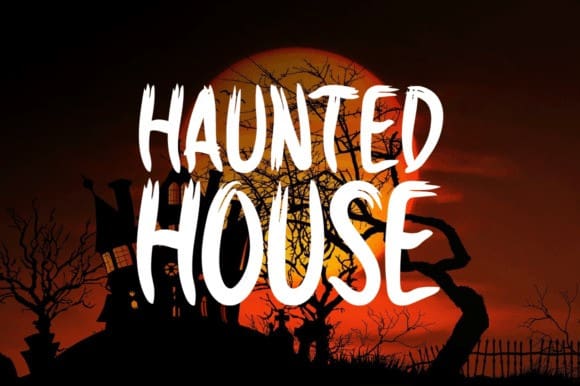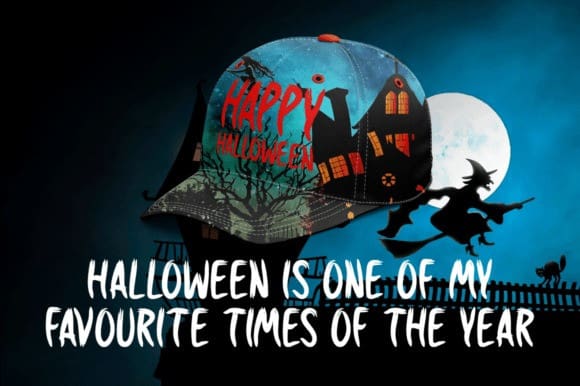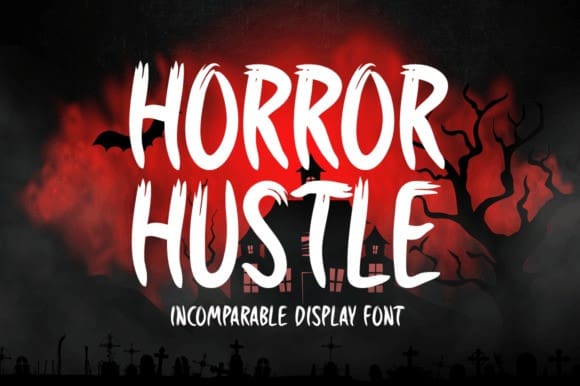
Horror Hustle Font
Horror Hustle Font is a casual display font. It is perfectly suitable for any Halloween-related project or crafty idea! The only limit is your imagination.